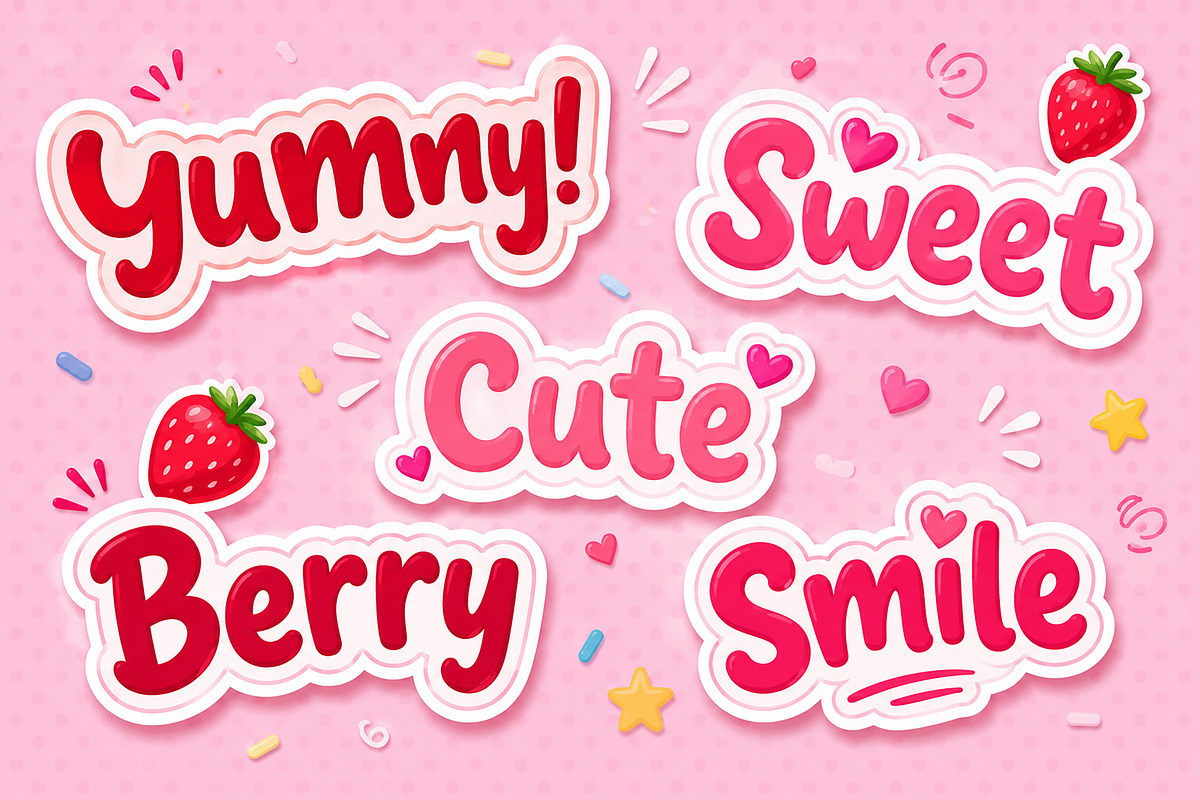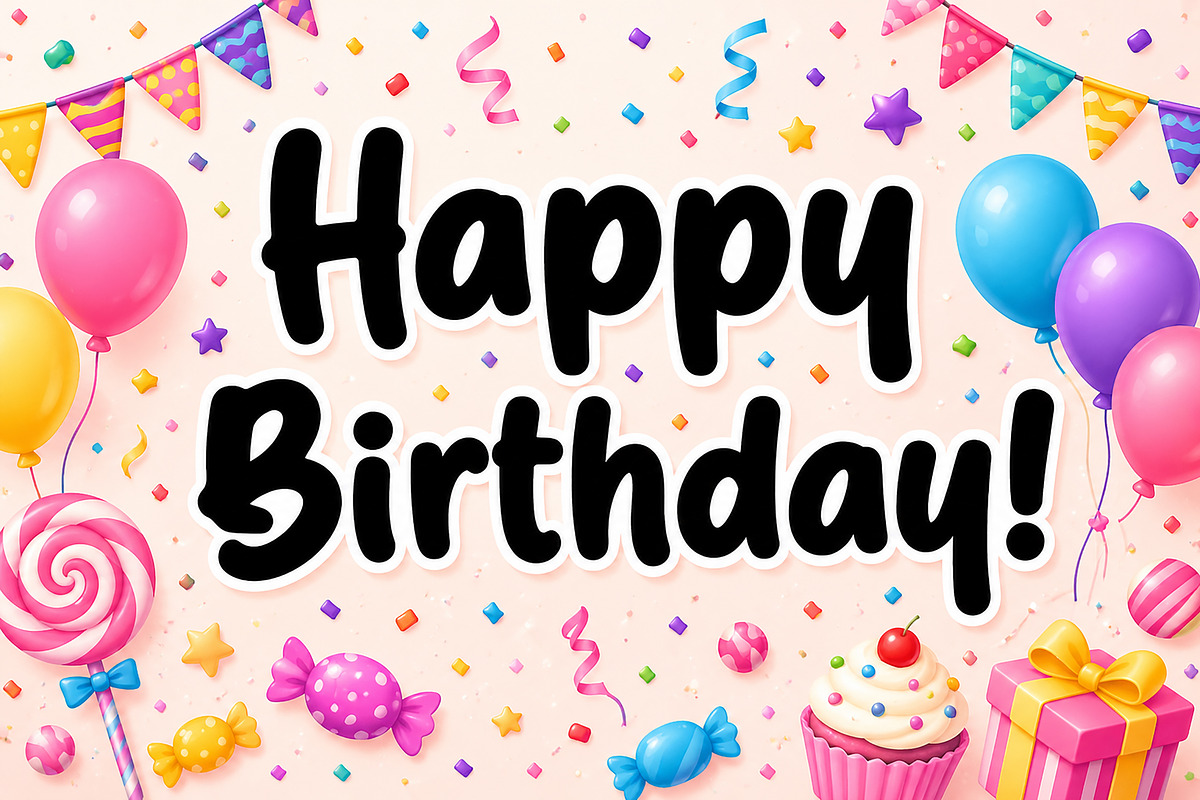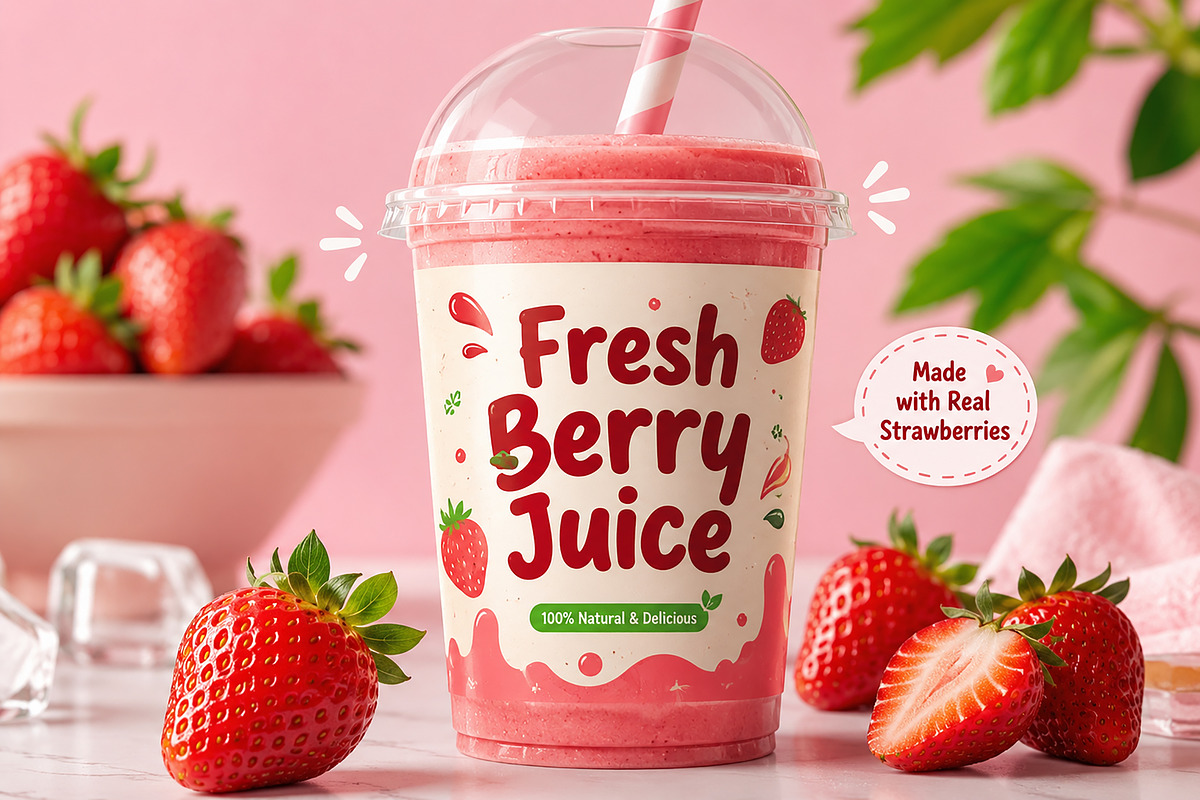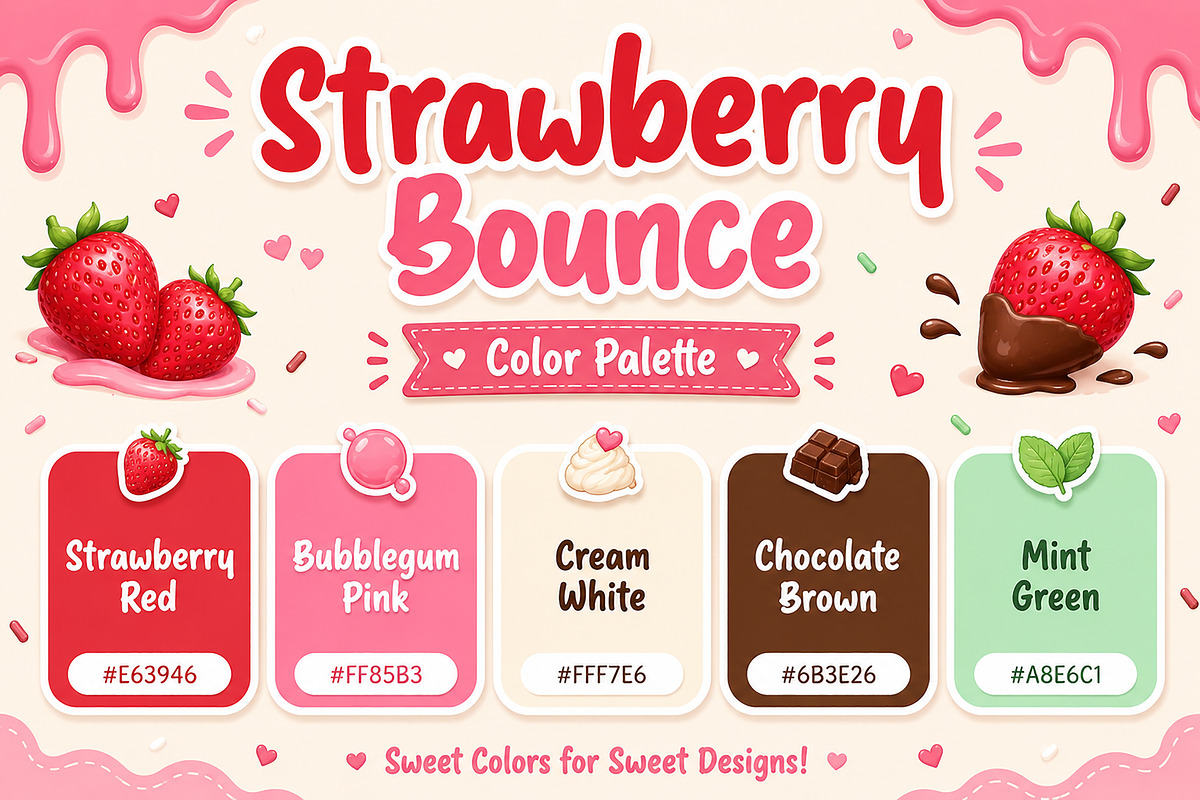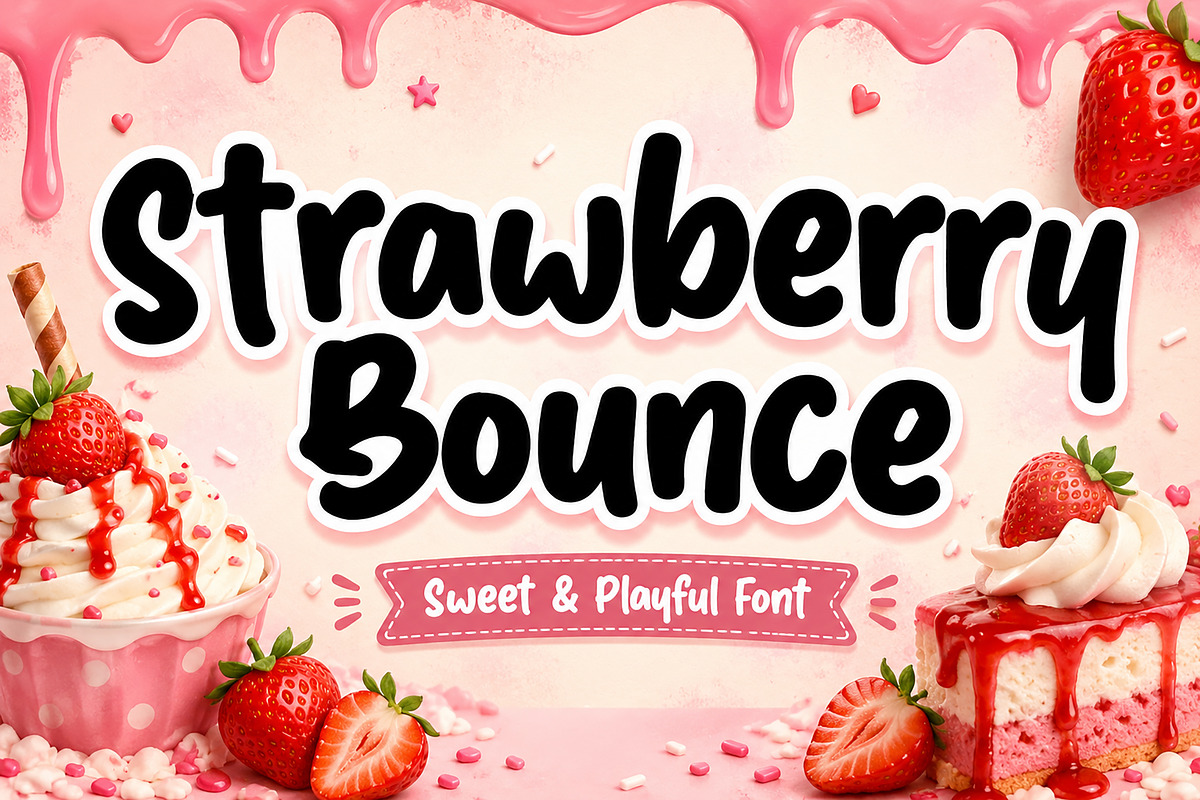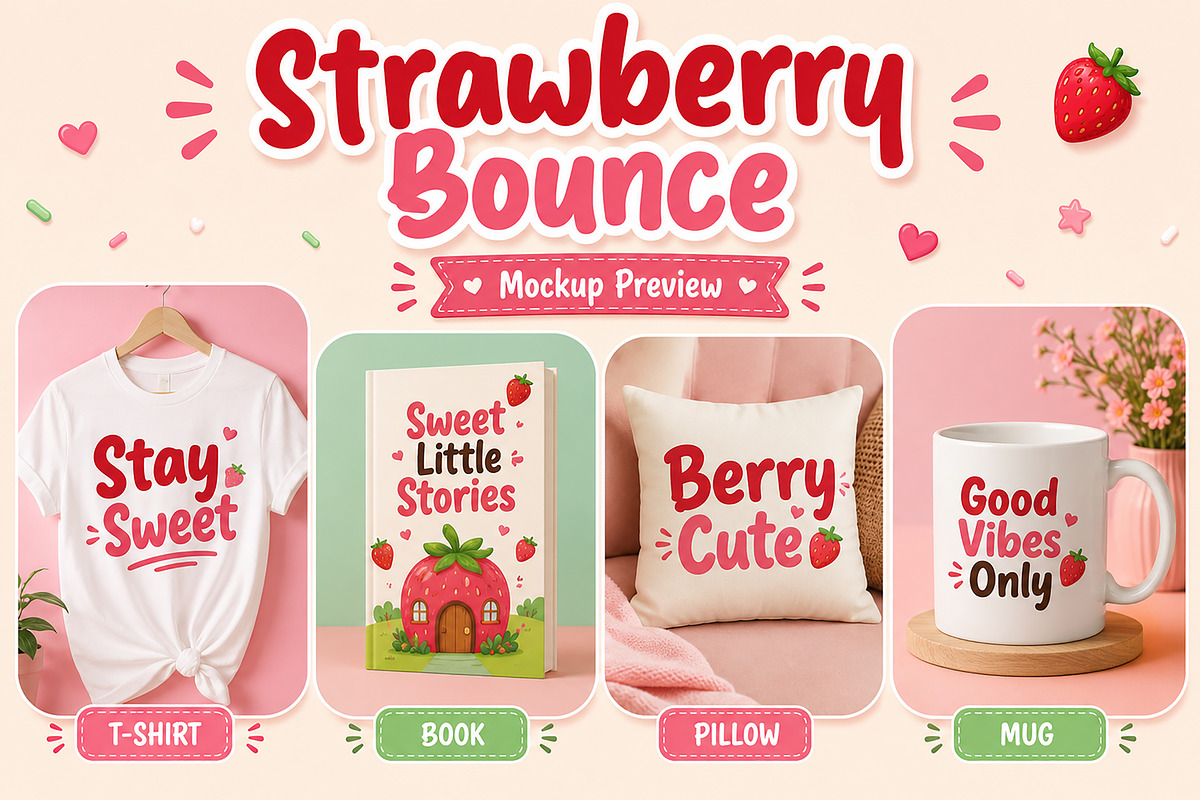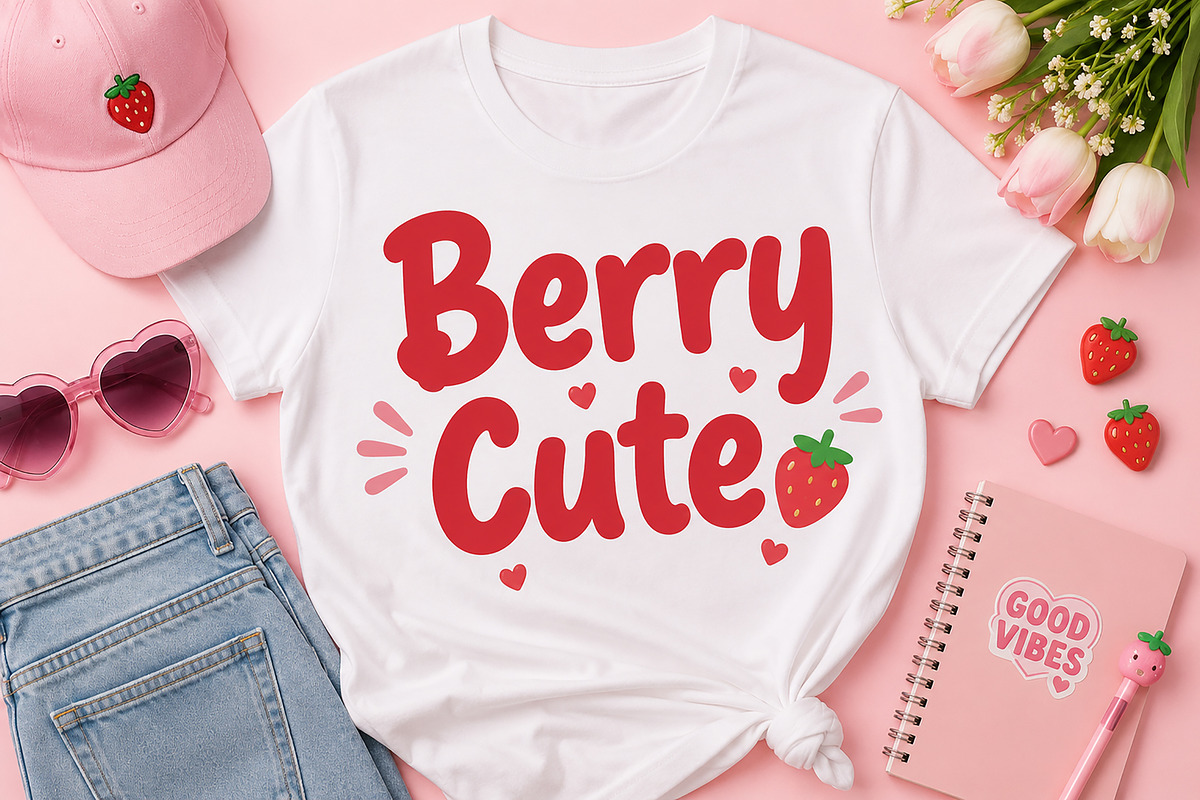
Strawberry Bounce
Strawberry Bounce – Cute Playful Display Font
Strawberry Bounce is a cute and playful display font with soft rounded letterforms, perfect for kids designs, branding, packaging, stickers, posters, and fun creative projects.
Strawberry Bounce is a cheerful display font featuring bold rounded shapes and a lively handwritten style. Its sweet and bouncy personality brings a fun, friendly, and charming feel to every design.
Perfect for children’s products, playful logos, packaging, stickers, greeting cards, invitations, social media graphics, merchandise, posters, and creative branding, Strawberry Bounce adds a joyful handmade touch to your typography.
Whether used for print or digital projects, Strawberry Bounce works beautifully for headlines, labels, cute designs, and colorful promotional graphics.